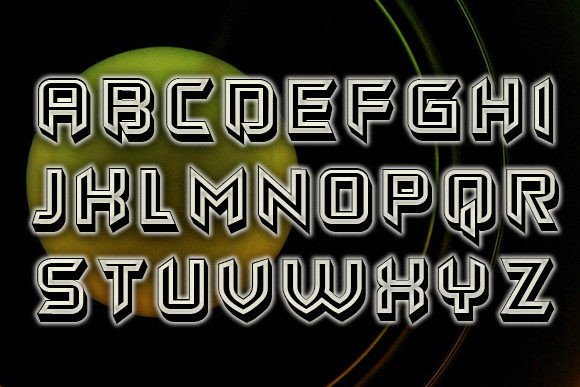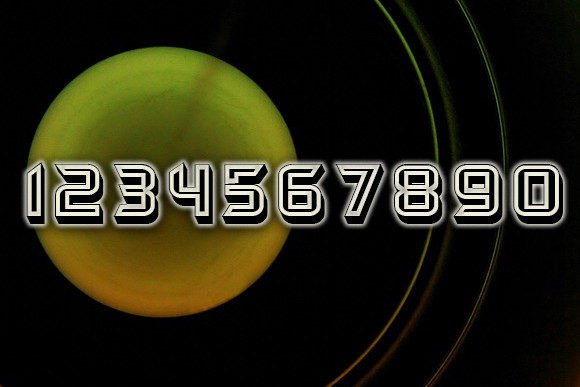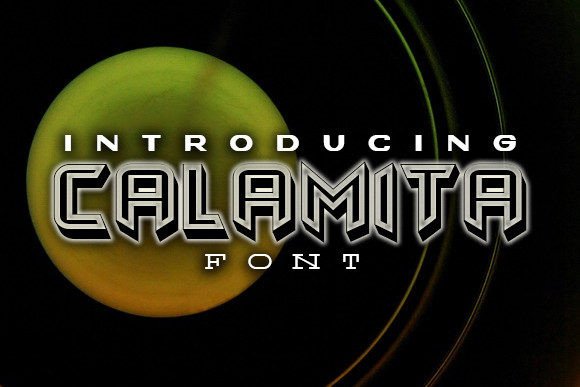
Introducing Calamita Font: The Ultimate 3D Display Typeface for Stunning Designs
Are you tired of using the same old fonts for your designs? Do you want to add a touch of uniqueness and coolness to your banners, headlines, and other visual elements? Look no further than Calamita Font, a game-changing 3D display typeface that’s sure to take your designs to the next level.
What is Calamita Font?
Calamita Font is a modern, 3D display typeface that’s designed to make a statement. With its sleek and futuristic design, this font is perfect for designers and crafters who want to add a touch of edginess to their work. Whether you’re creating a banner, headline, or any other visual element, Calamita Font is sure to grab attention and leave a lasting impression.
Key Features of Calamita Font
So, what makes Calamita Font so special? Here are some of its key features:
- Unique 3D Design: Calamita Font boasts a stunning 3D design that’s sure to turn heads. Its sleek and futuristic look makes it perfect for modern designs.
- High-Quality Vectors: This font is made up of high-quality vectors, ensuring that it looks crisp and clear even at large sizes.
- Versatile: This font can be used for a wide range of designs, from banners and headlines to logos and more.
Why Use Calamita Font?
So, why should you use Calamita Font for your designs? Here are just a few reasons:
- Add a Touch of Uniqueness: With Calamita Font, you can add a touch of uniqueness to your designs and stand out from the crowd.
- Make a Statement: This font is designed to make a statement, making it perfect for bold and eye-catching designs.
- Perfect for Modern Designs: Calamita Font’s modern design makes it perfect for modern designs, from tech and gaming to fashion and lifestyle.
Tips and Tricks for Using Calamita Font
Here are some tips and tricks for getting the most out of Calamita Font:
- Experiment with Colors: Try out different colors and gradients to really make your design pop.
- Play with Sizes: Experiment with different font sizes to create visual interest and hierarchy.
- Combine with Other Fonts: Try combining Calamita Font with other fonts to create a unique and eye-catching design.